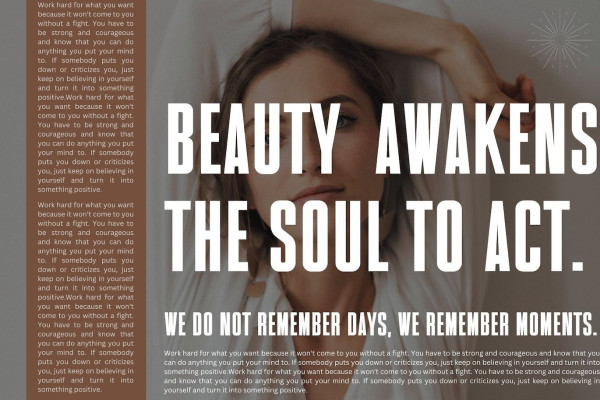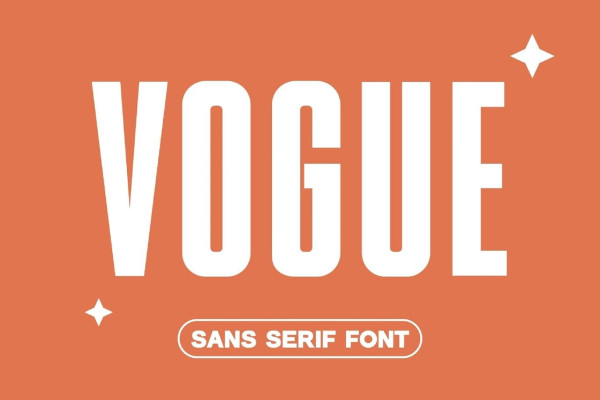
Vogue Sans Font
Vogue Sans Font, inspired by the famous minimalist logo perfect for the purposes of designing templates, brochures, videos, advertising branding, logos, invitation, layout design, elegant crafting, beauty design and other